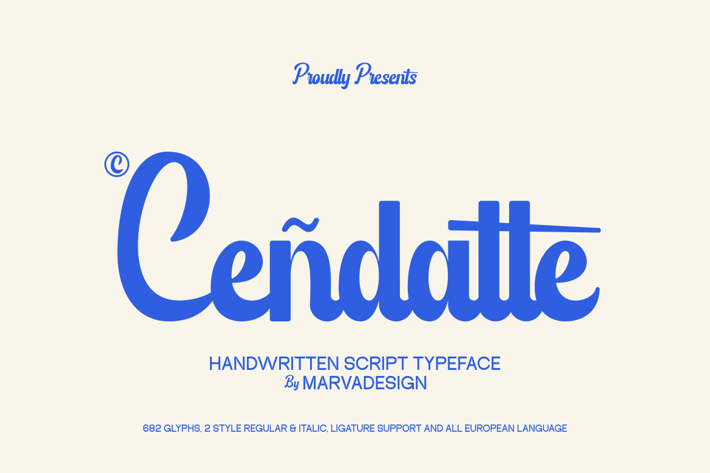
Cendatte - Script Font
Introducing Cendatte is a modern handwritten script font with a distinct blend of display font characteristics. It features smooth, rounded edges that give it a friendly yet sophisticated look. The font is notably bold and sturdy, providing a strong visual presence that makes it ideal for impactful designs. Cendatte offers two style options: regular and italic, allowing for versatility in various design applications. The boldness, combined with its handwritten style, makes it perfect for logos, headlines, and branding, while maintaining readability and elegance.